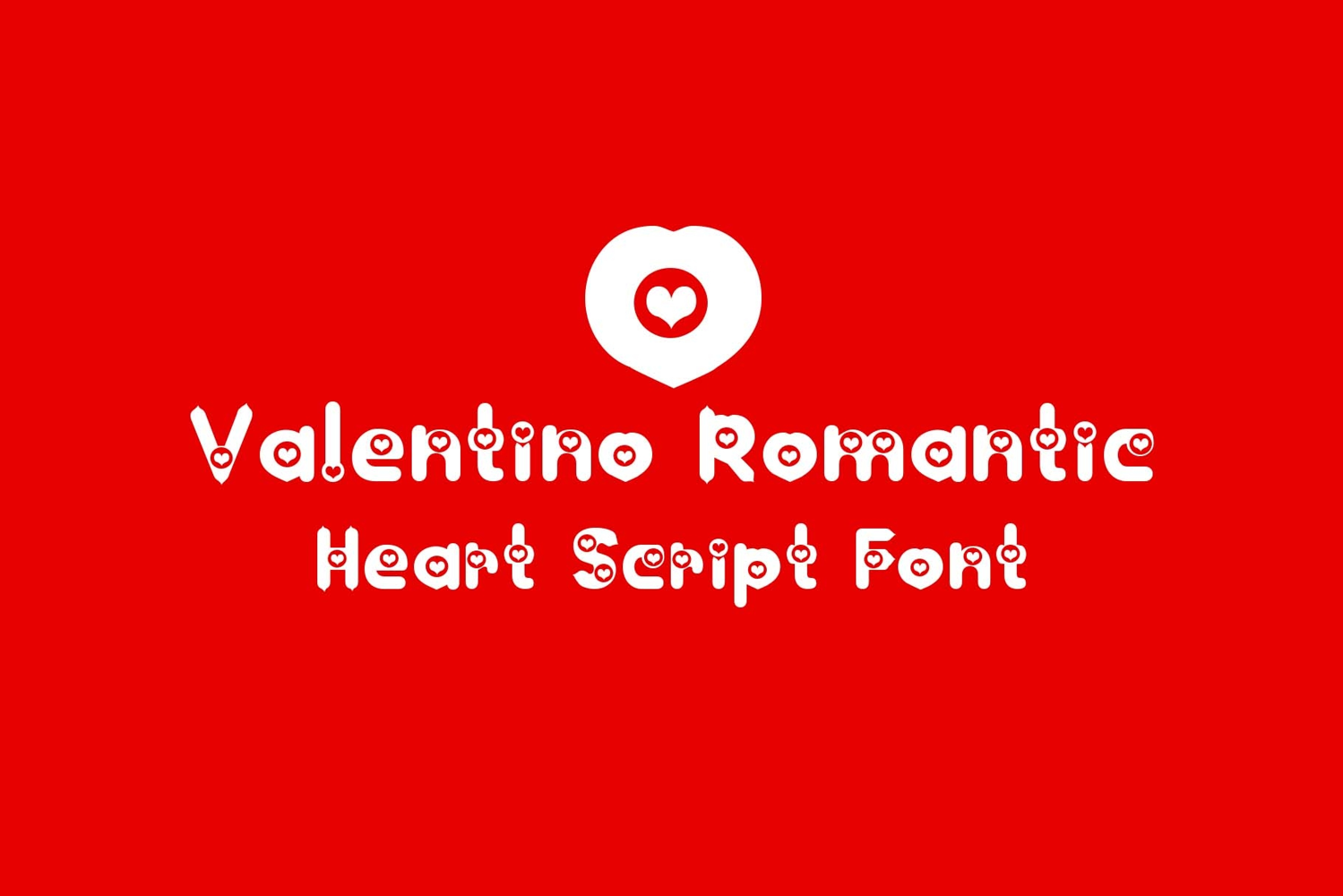
The Valentino Script font is an essential addition to your creative toolkit! Offering incredible value, these heart-infused letters bring instant charm to wedding invites, apparel, and stickers. Whether you are a pro designer or a hobbyist, this font provides the perfect 'love' vibe for any project.
Infuse your designs with instant charm using Valentino Script, the essential "love-inspired" typeface for your creative toolkit. Characterized by its graceful flow and signature heart-infused flourishes, this font is the ultimate choice for projects that need a touch of romance and a professional finish.